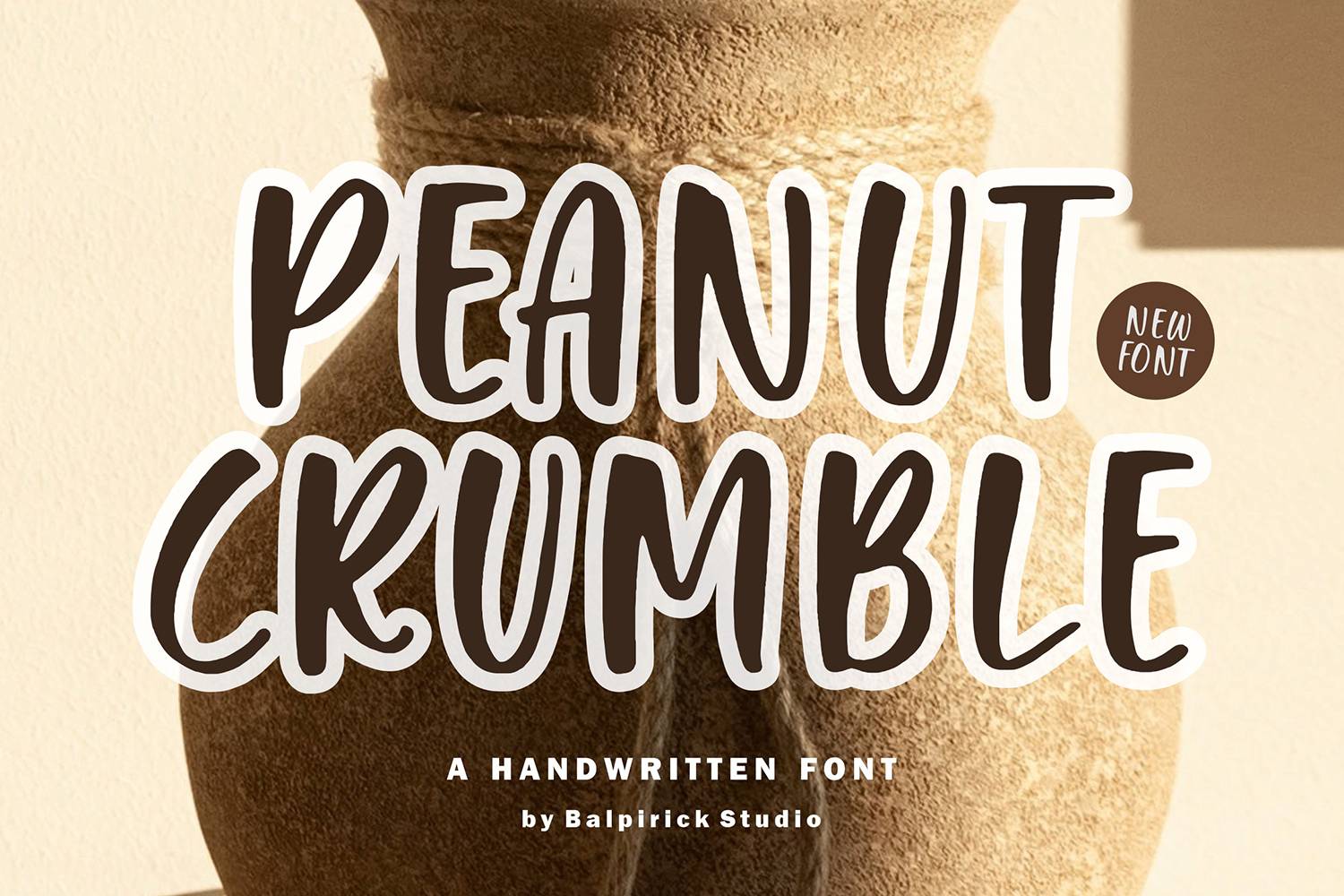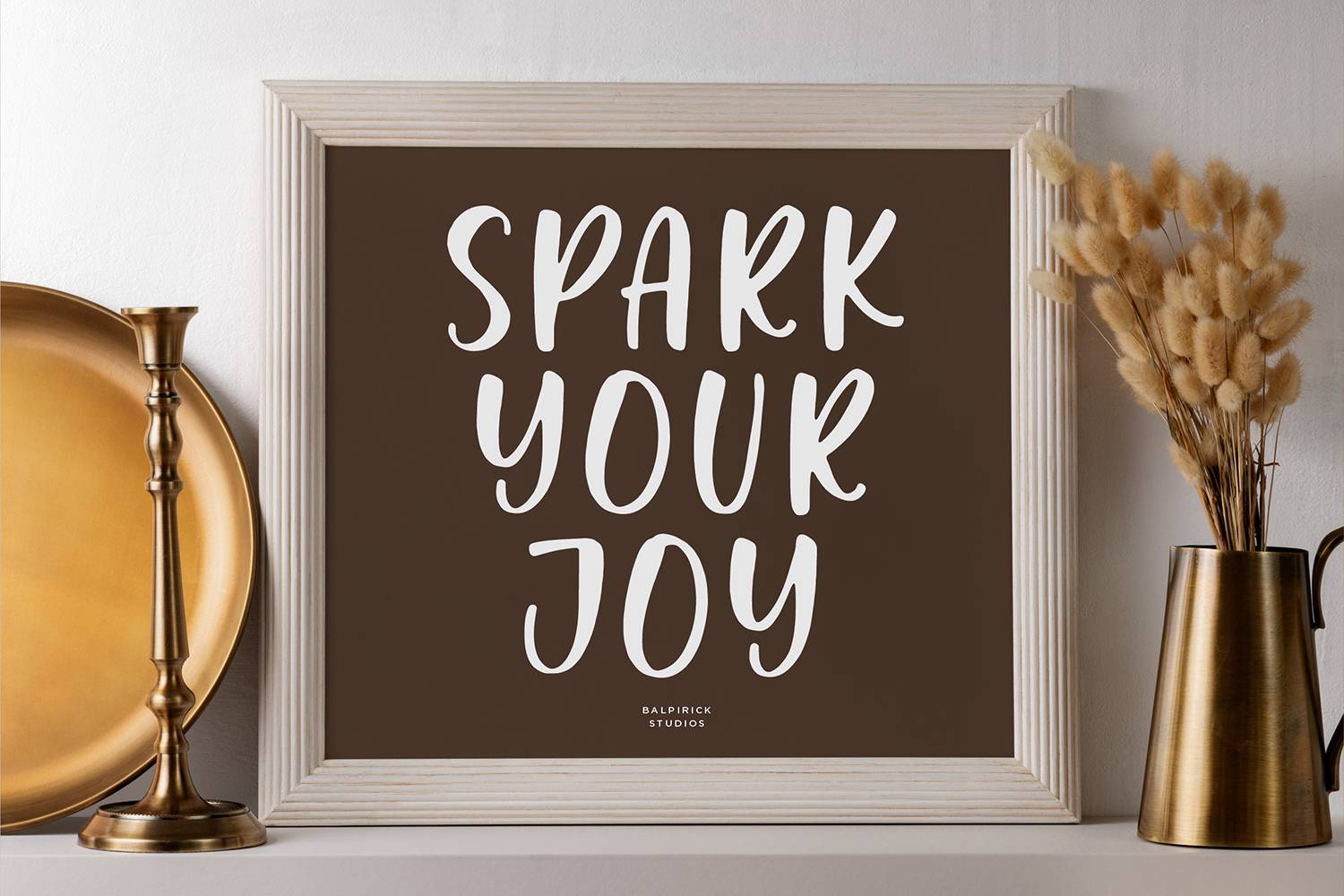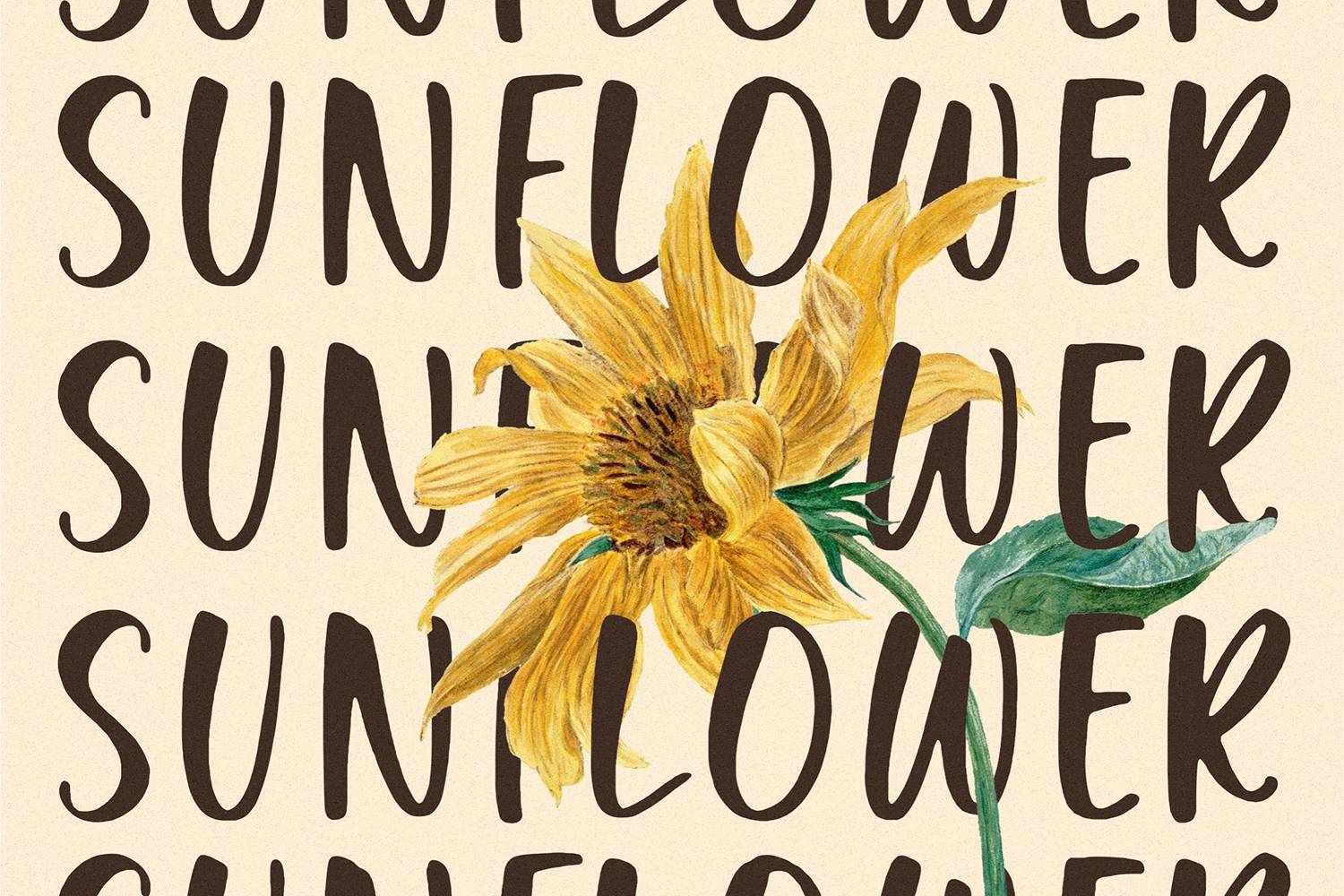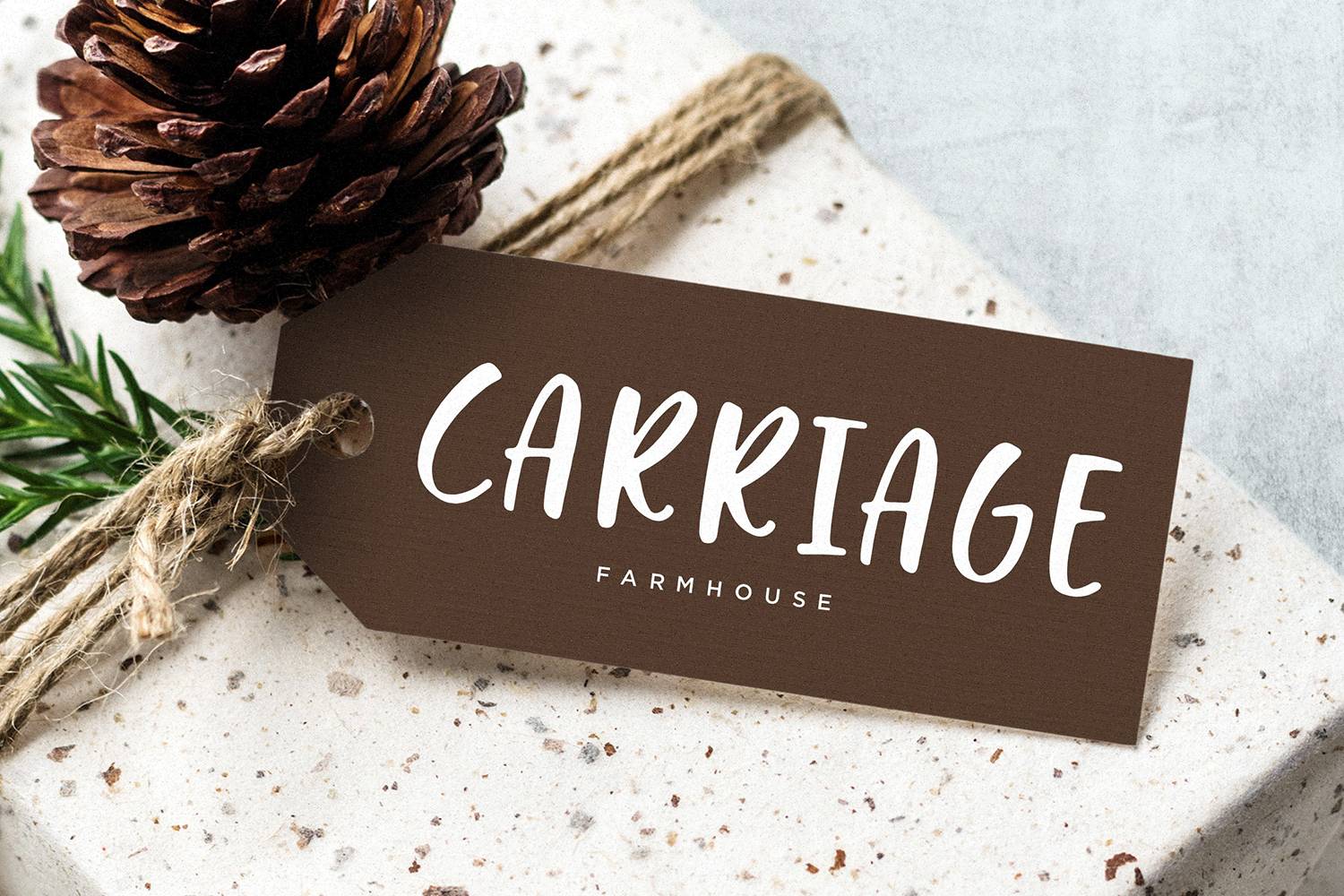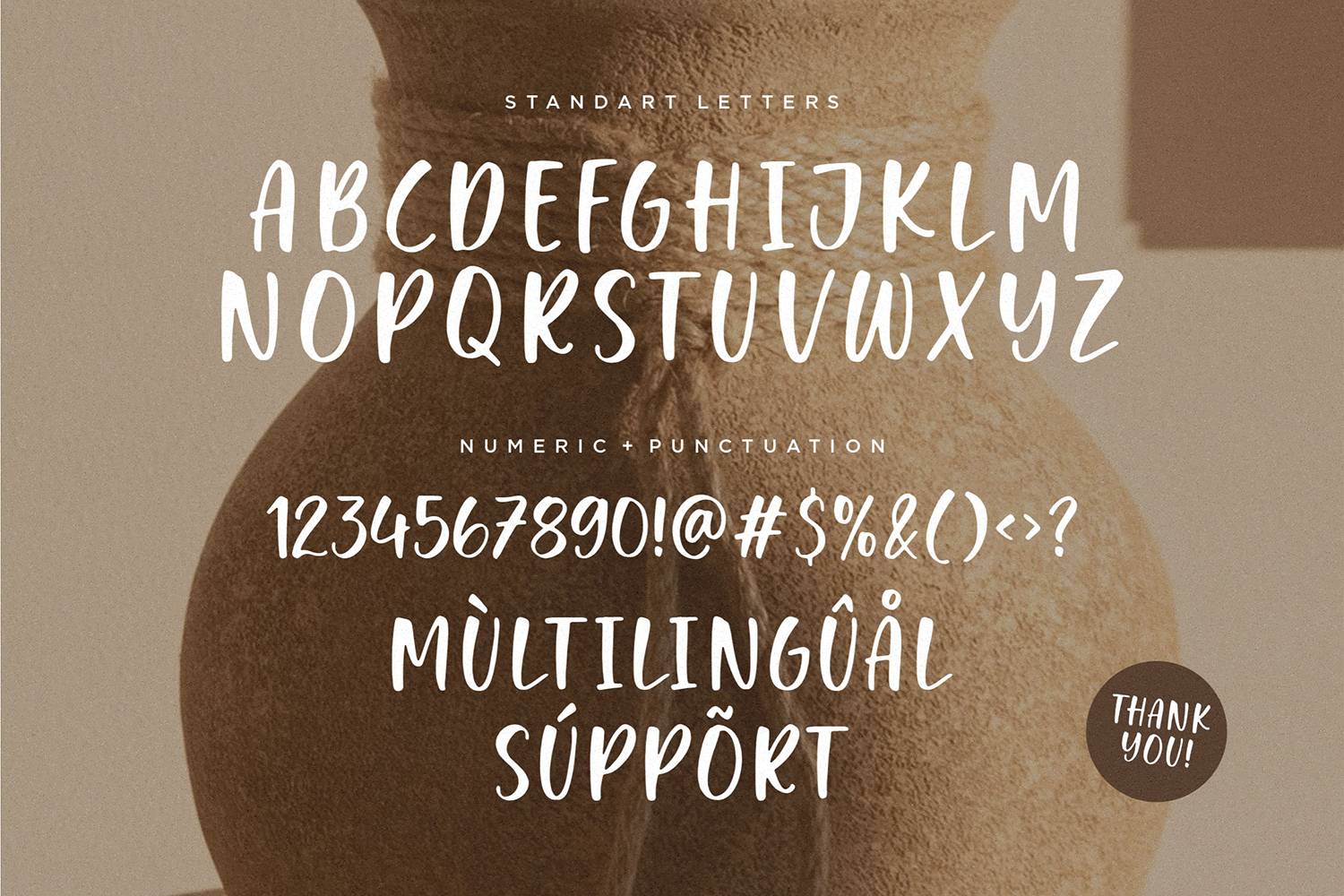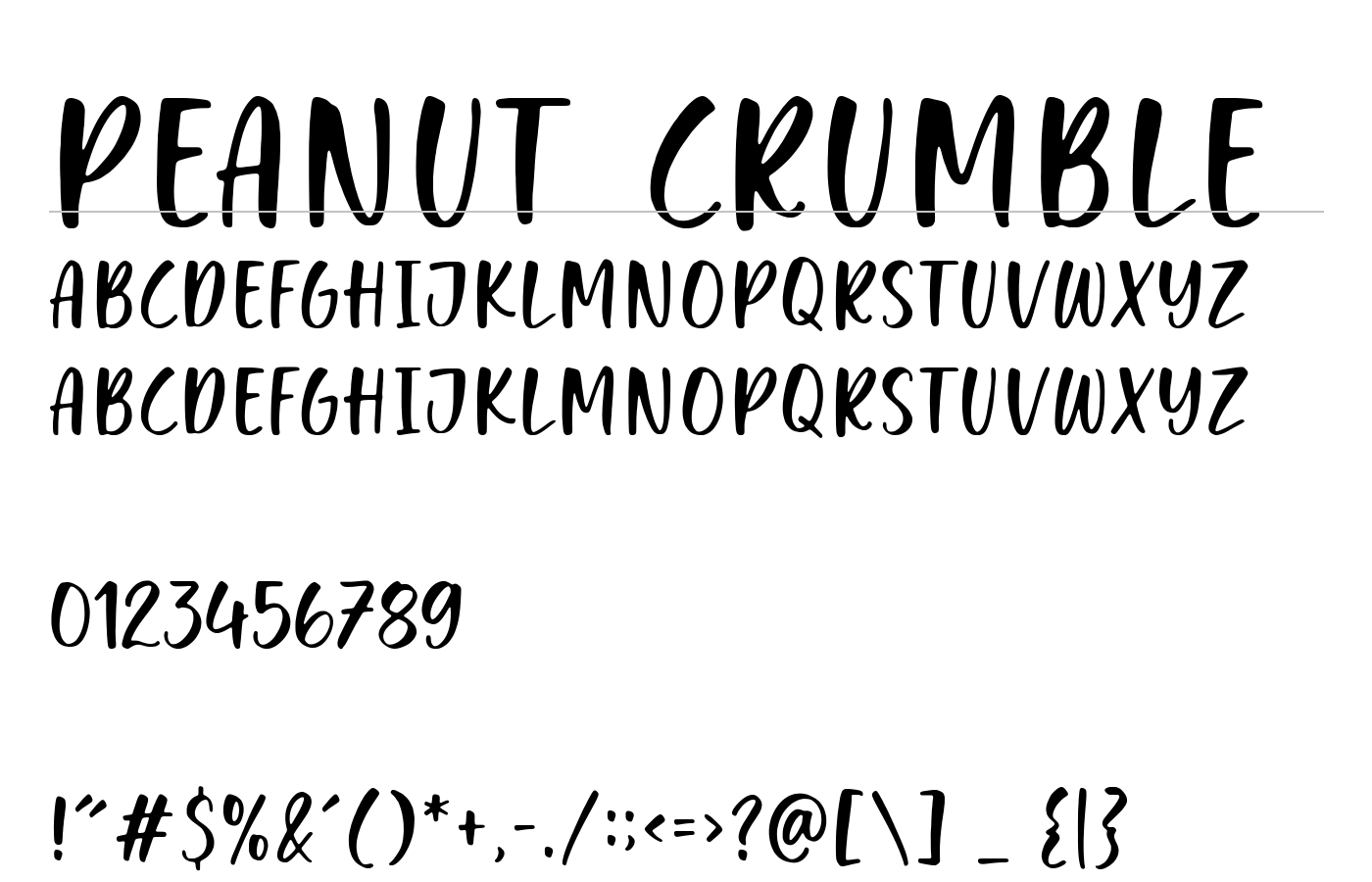
Peanut Crumble is a playful, casual script font with a hand-drawn feel, featuring smooth, rounded strokes and a lively, slightly uneven rhythm that adds charm and personality. Its medium weight and moderate x-height make it readable yet friendly, perfect for conveying warmth and approachability in branding, packaging, and informal headlines. This font works best where a fun, personal touch is desired, such as in children’s products, lifestyle blogs, or creative projects.
Peanut Crumble Font
About Peanut Crumble Font